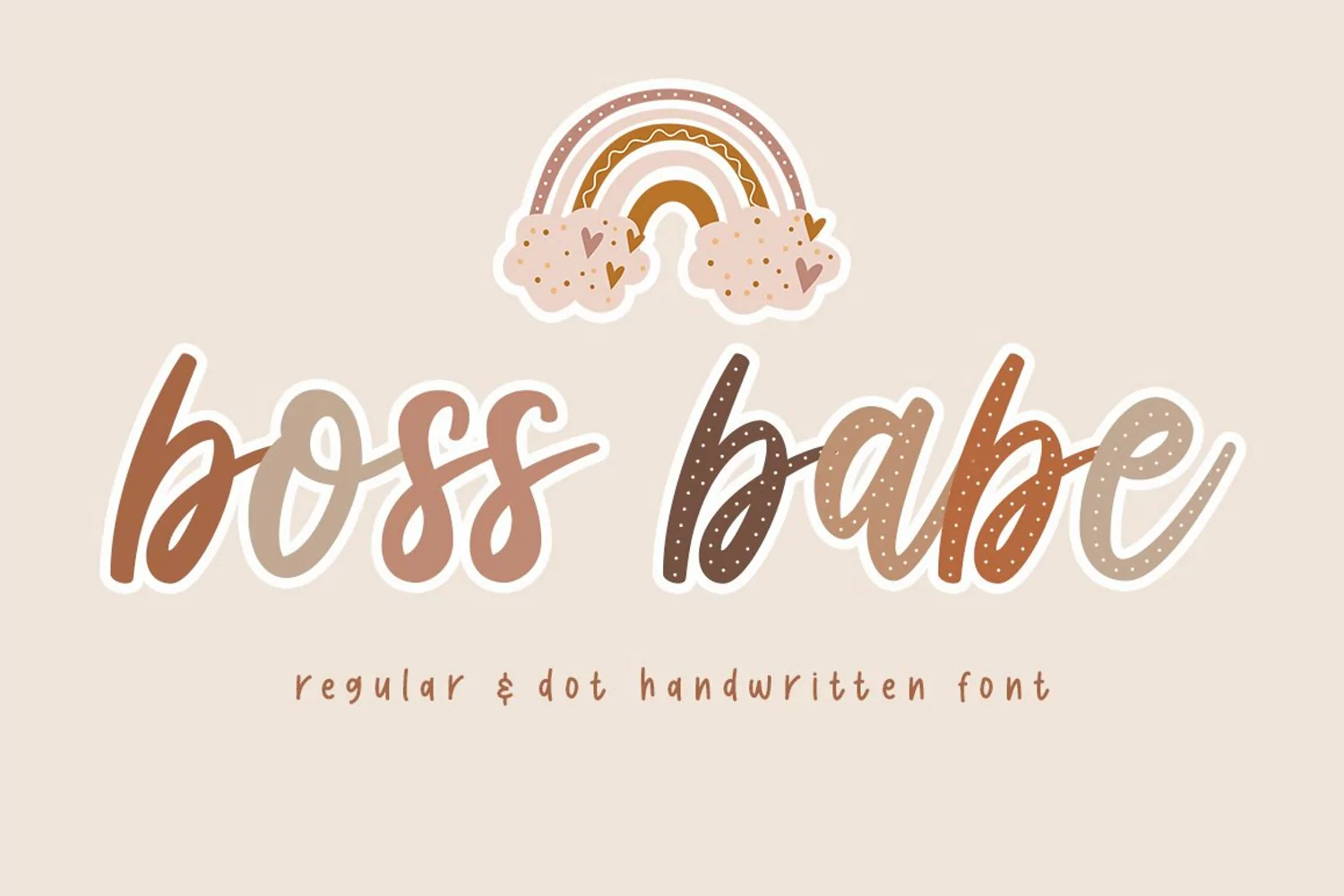
Boss Babe
Boss Babe-Dot
Boss Babe is a dainty and flowing handwritten font.
Sweet and joyful, this font will be ideal for writing wedding invitations, cards or any other design that may need a romantic, personalized touch!